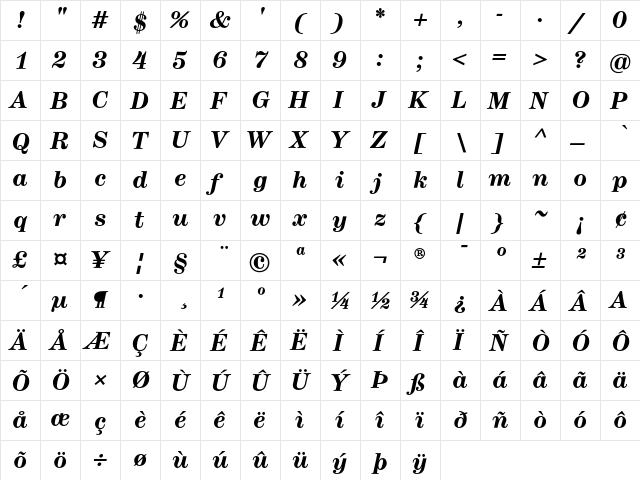
Hercules Text Bold Italic
Design Context for Hercules Text Typeface
Hercules Text takes a measured approach to typography — its balanced proportions and neutral character make it a reliable workhorse for both digital and print work. The dynamic lean of this cut emphasises speed and emphasis in any layout. The heavy weight commands attention and anchors typographic hierarchies.
Pro Tip: Use Hercules Text for emphasis, pull quotes, and subheadings where its slanted energy can add rhythm to the layout.